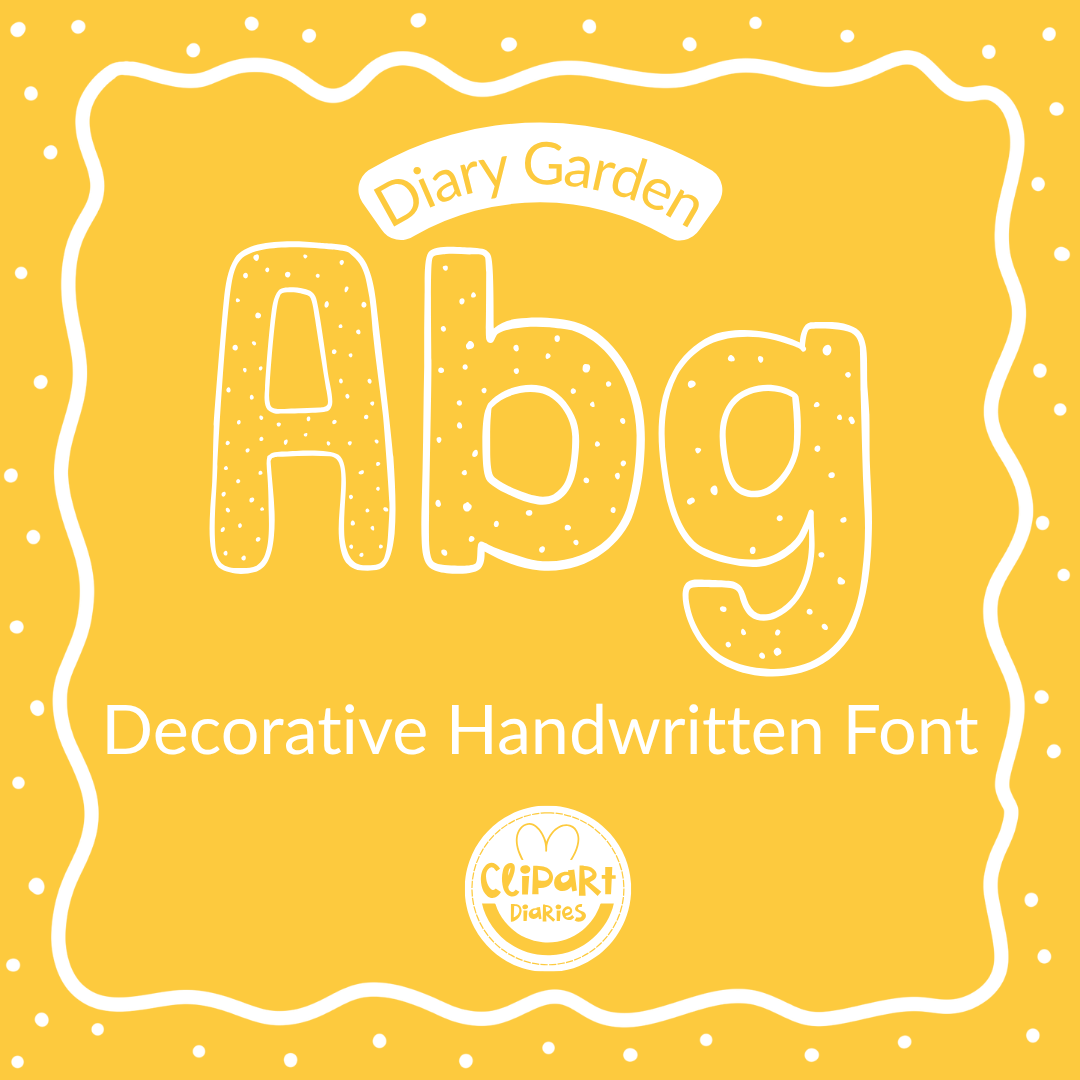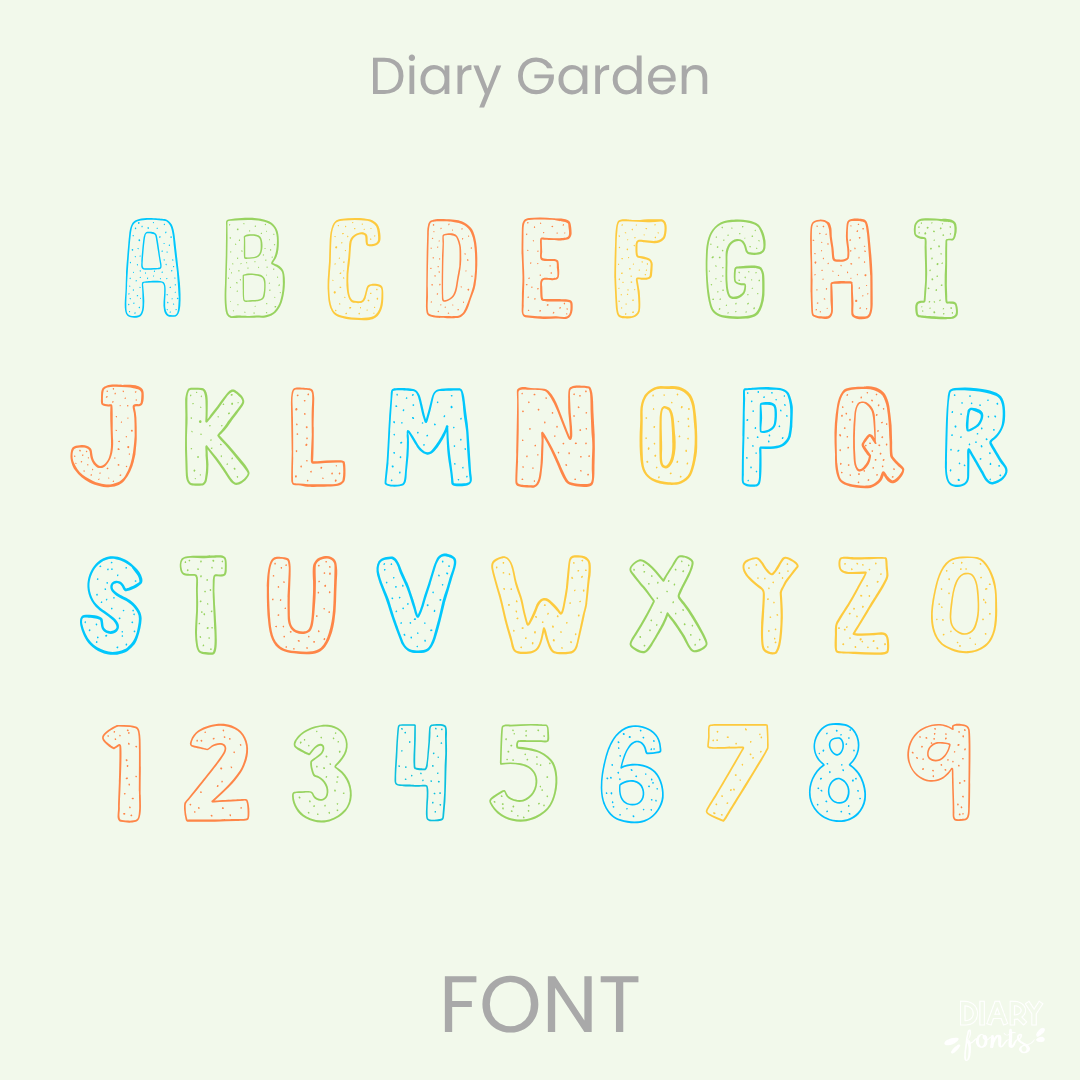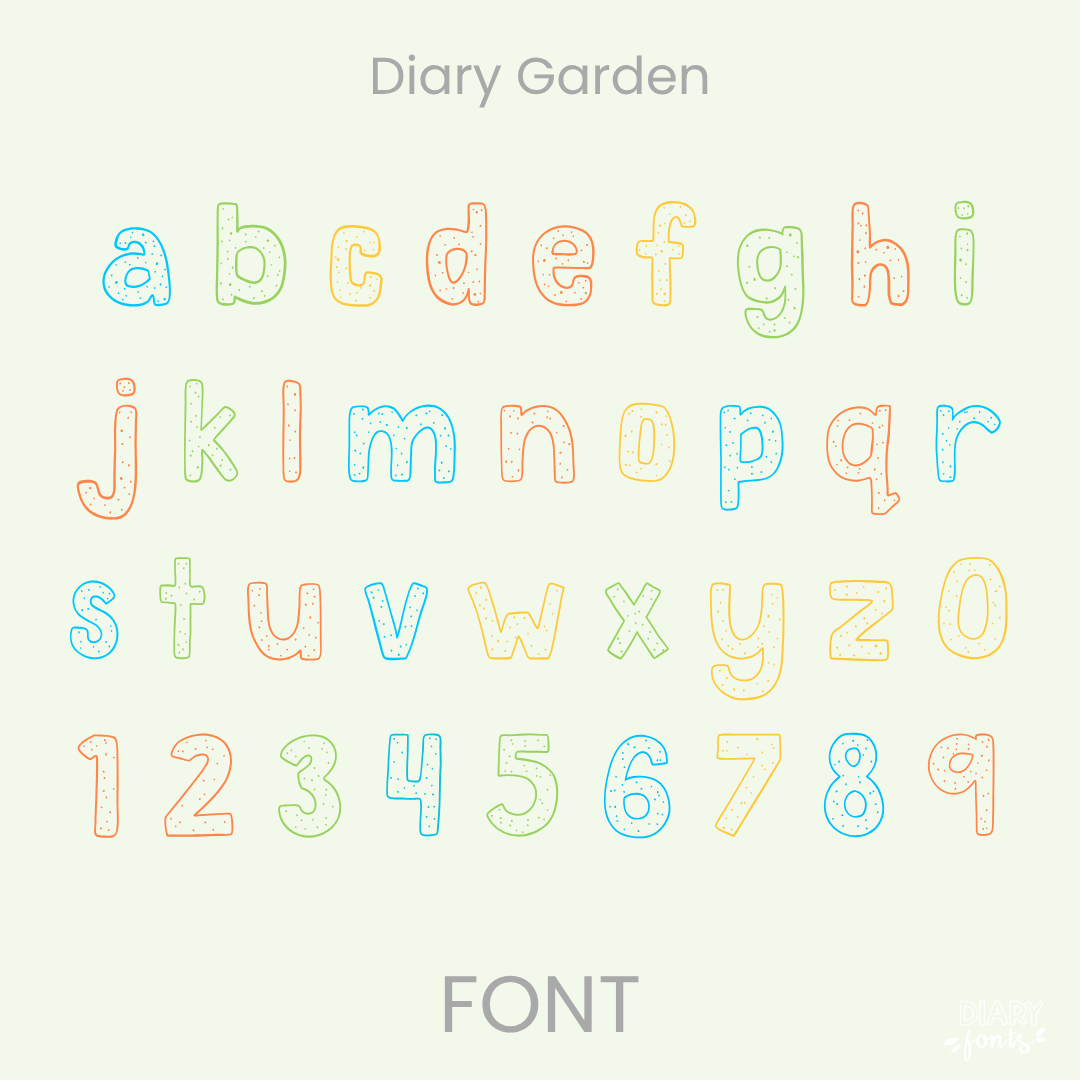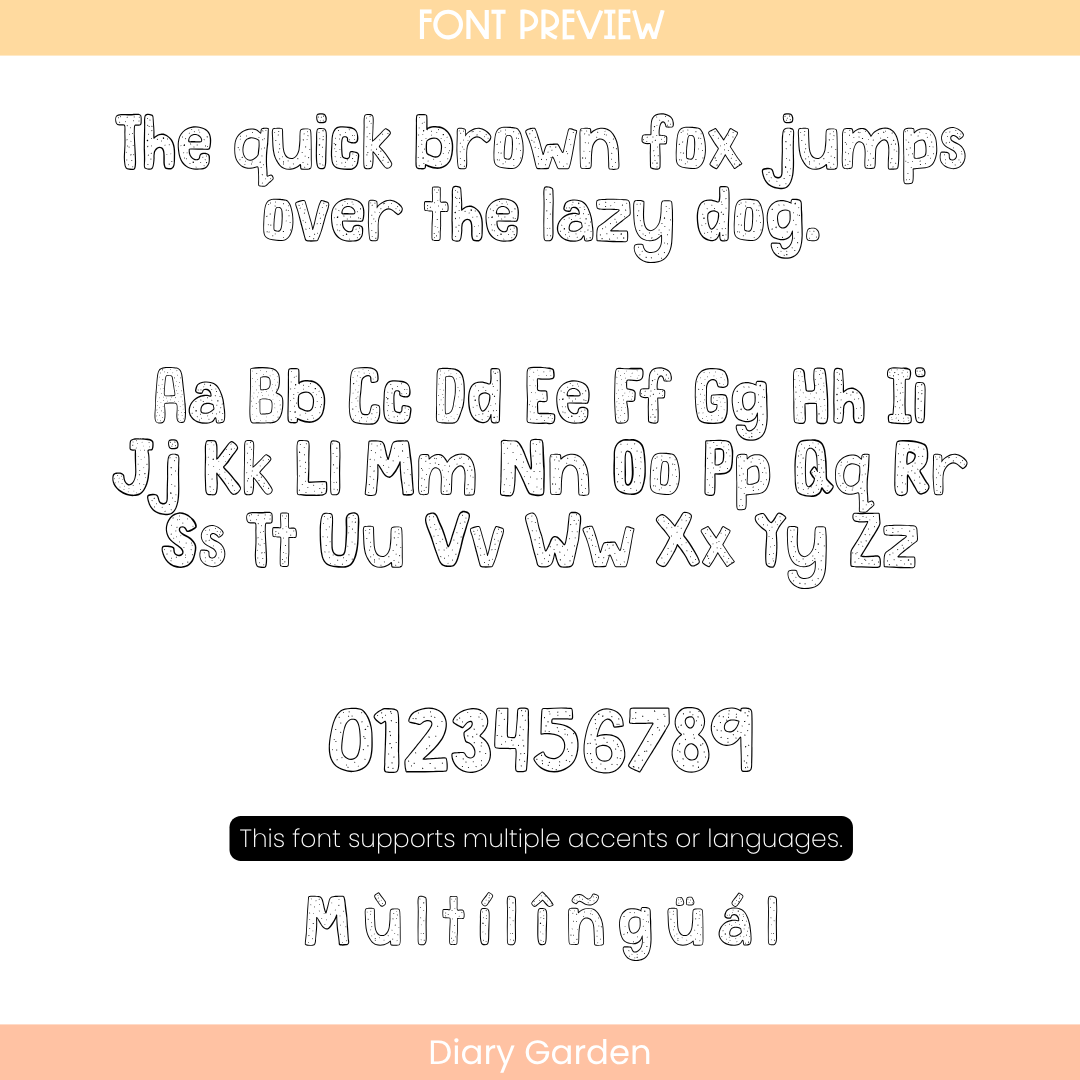
If you want to give your projects a cheerful and welcoming feel, Diary Garden is an excellent choice. It features playful, hand-drawn character styles where lowercase and uppercase letters are subtly adorned with tiny leaves and nature-inspired details. While keeping its uniquely artistic and decorative personality, the core letterforms remain clear, upright, and highly legible for students. This makes it an eye-catching option for seasonal spring or Earth Day activities, classroom bulletin boards, morning meeting slides, and creative school projects. The font includes a full set of uppercase and lowercase letters, numbers, and multiple accents to support different languages. It is ready for use in Canva, MS Office, and Adobe Apps, and it works flawlessly on the iPad with GoodNotes and Procreate. Whether for personal classroom designs or commercial teacher resources, this font adds a soft, approachable, and earthy aesthetic to your work.